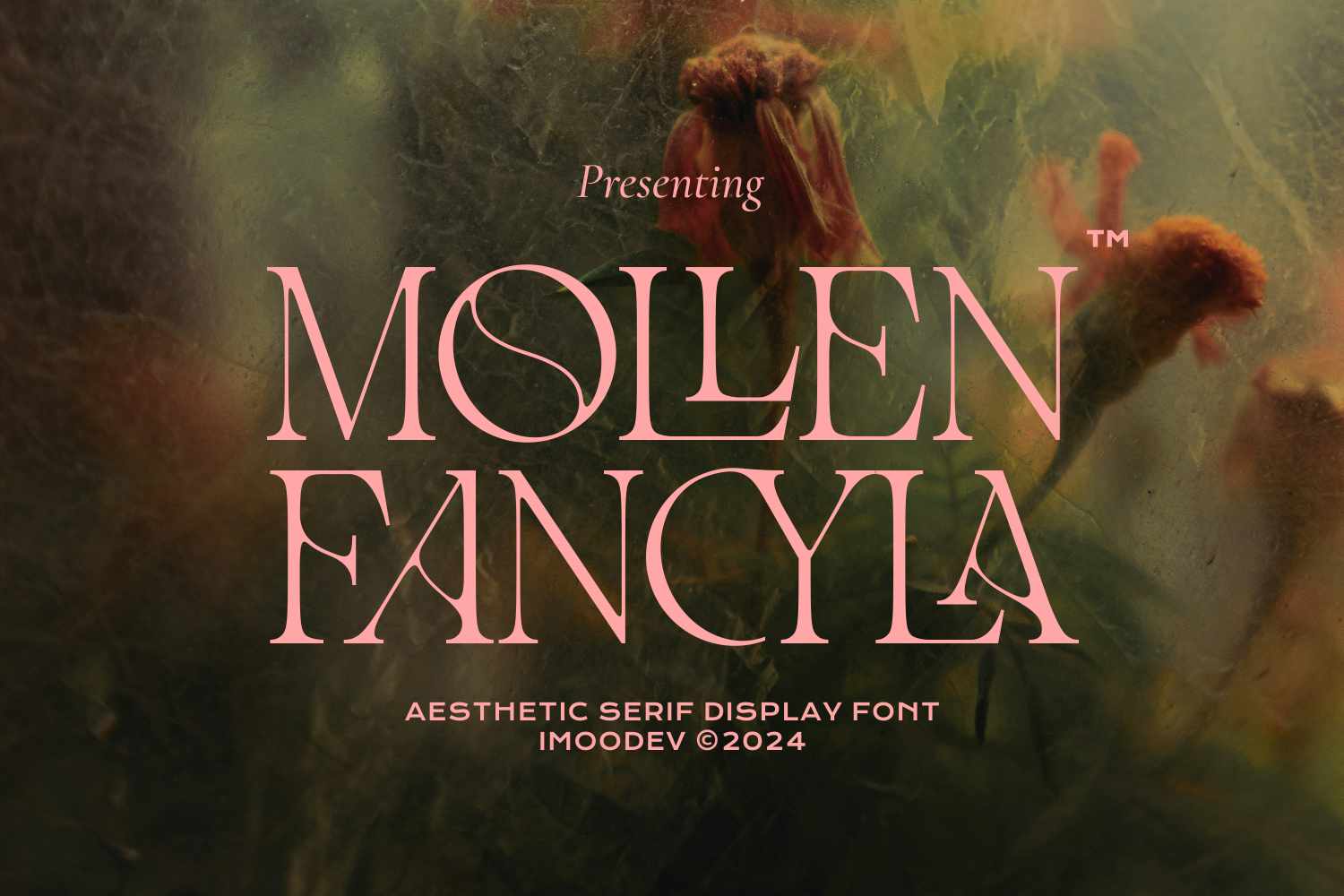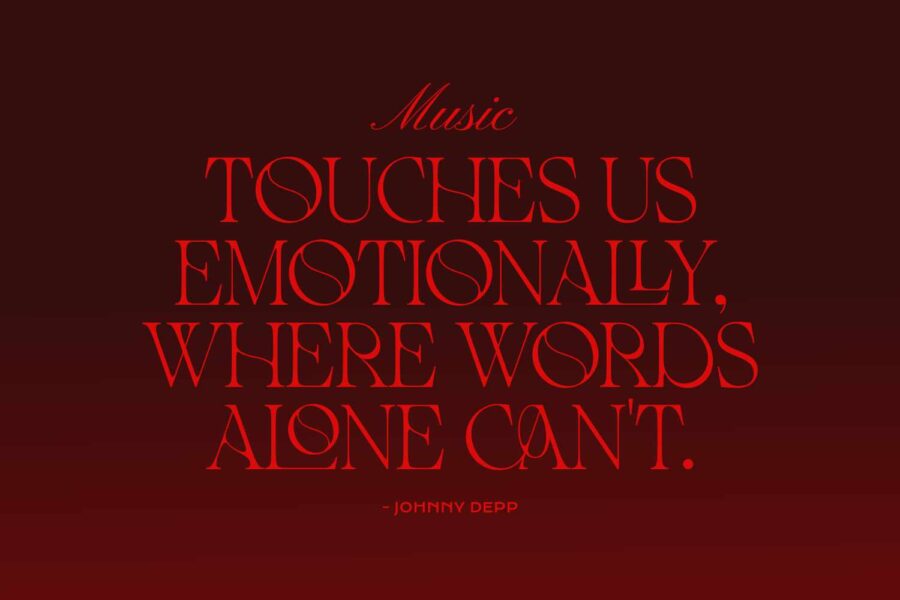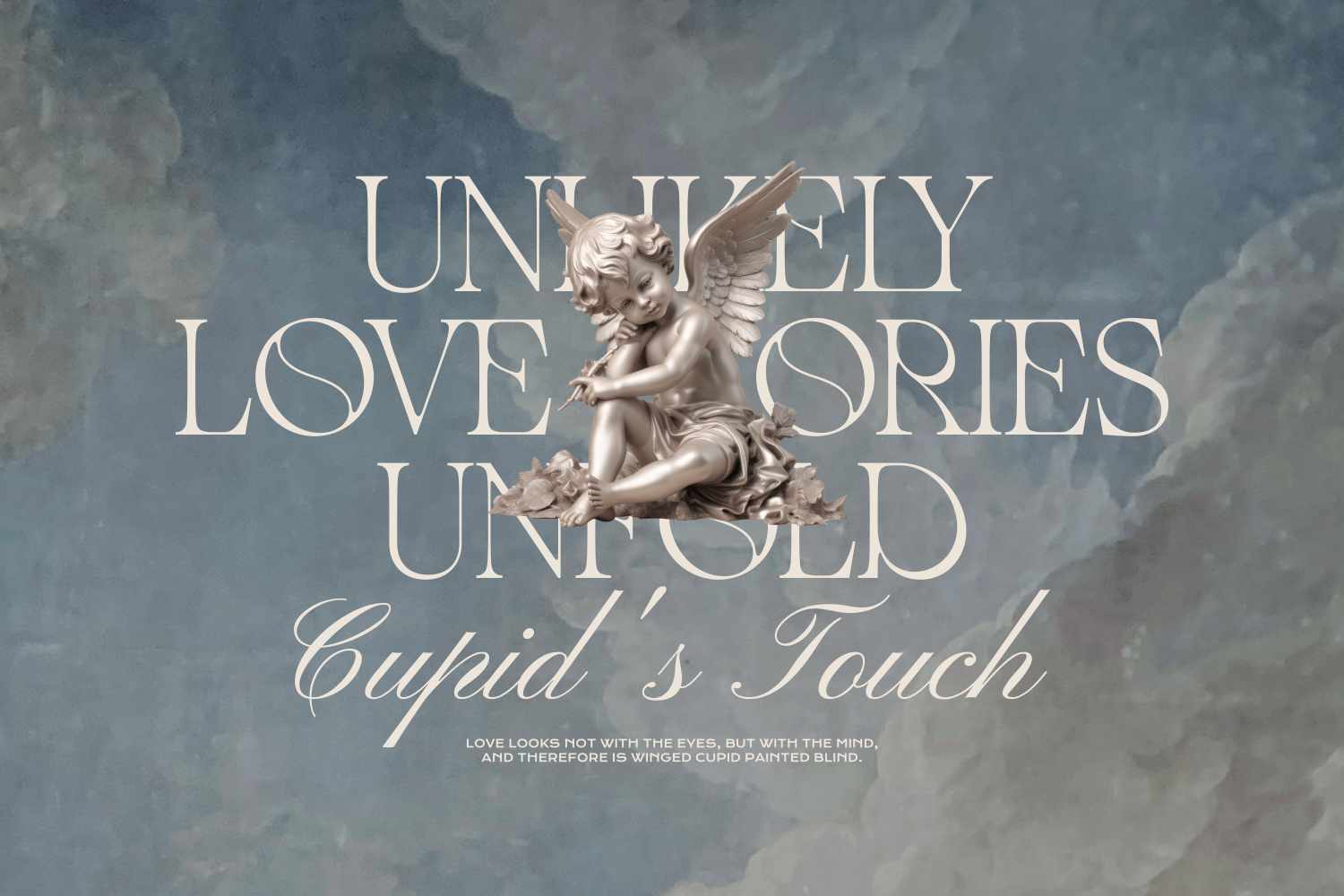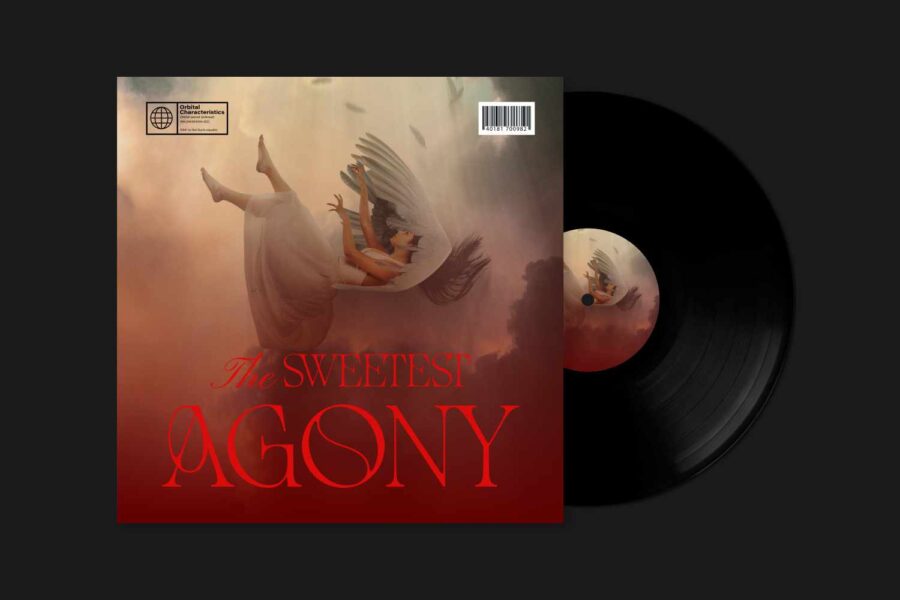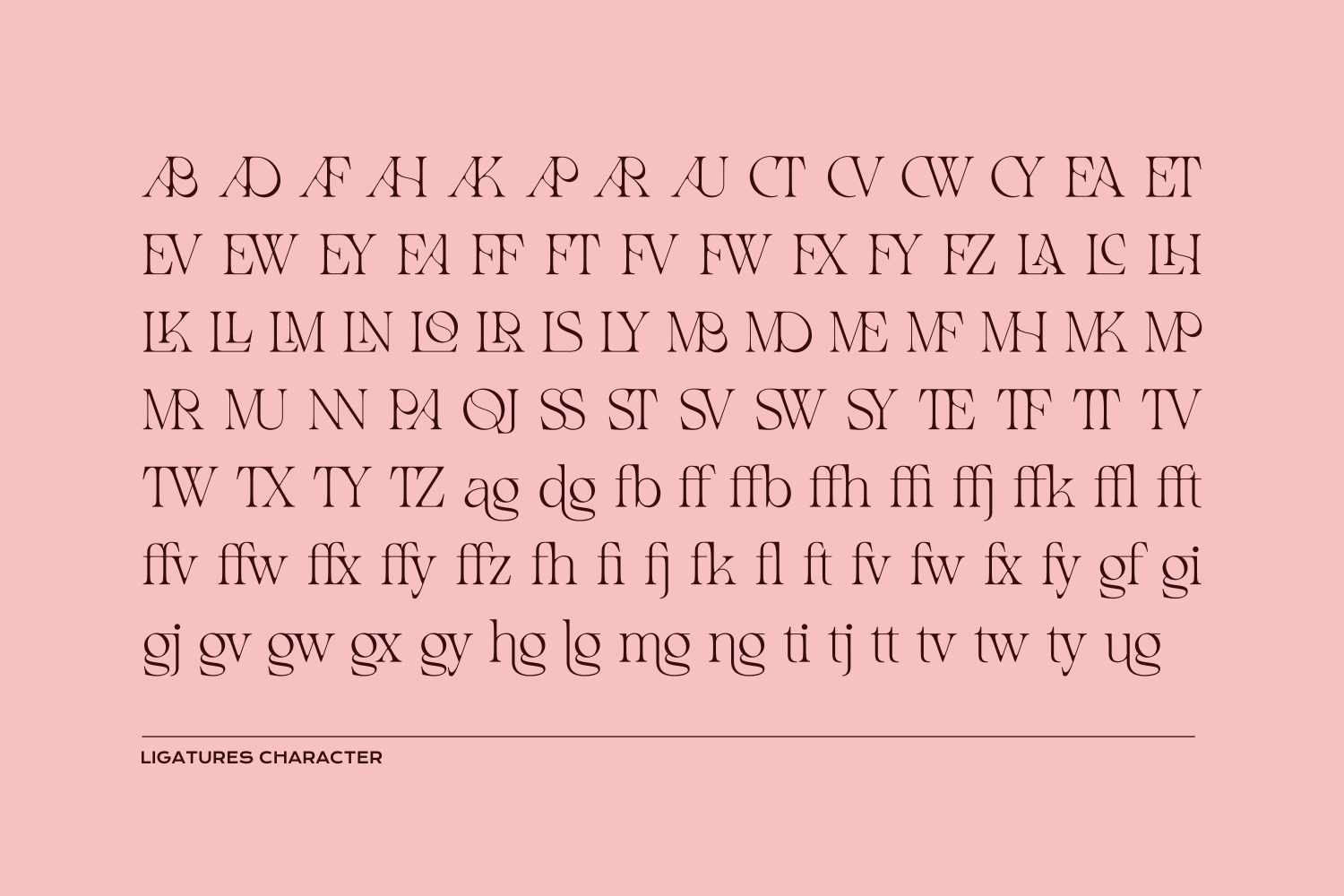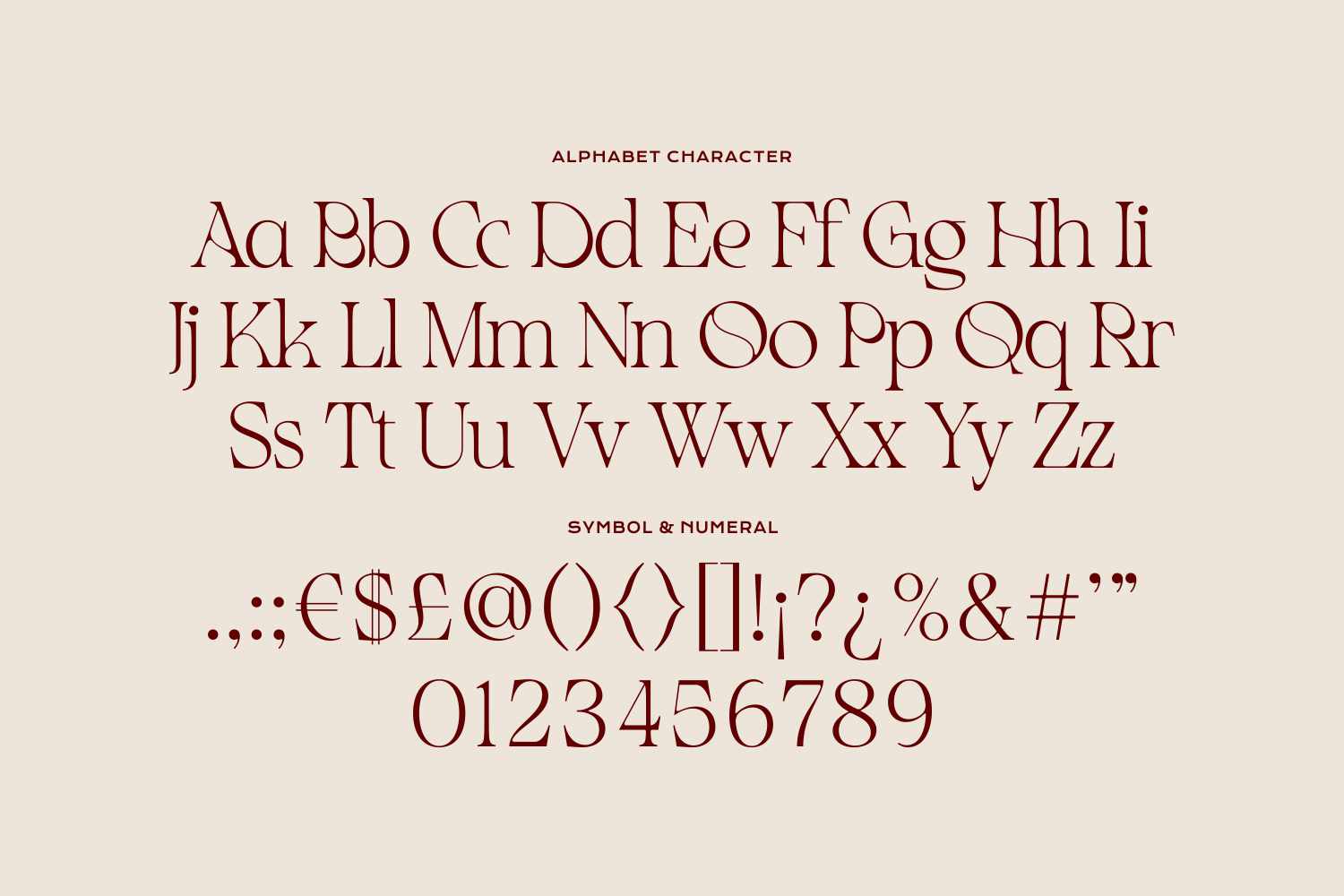
Mollen Fancyla is an aesthetic serif display font that blends elegance with artistic flair. Its high-contrast letterforms, unique ligatures, and graceful curves create a sophisticated yet modern impression, perfect for projects that demand refined beauty. The distinctive rounded details within certain characters add a touch of artistry, making it ideal for luxury branding, fashion editorials, and high-end packaging.
With its stylish alternates and decorative ligatures, Mollen Fancyla offers endless creative possibilities. This font shines in large display settings, such as magazine headlines, album covers, wedding invitations, and promotional posters. Whether paired with minimalist layouts or ornate designs, it effortlessly conveys sophistication, romance, and timeless charm.